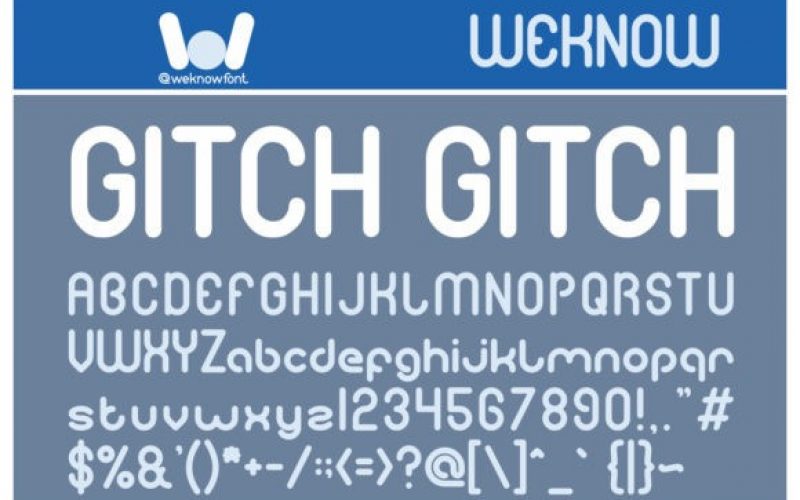
Gitch Gitch Display Font
Gitch Gitch is a simple and unique display font. Minimalist and modern, this font will add a touch of the future to each of your creations!